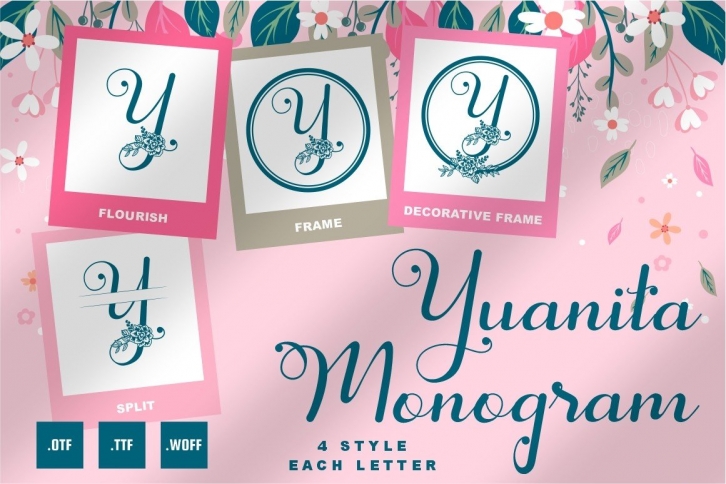
Yuanita Monogram is a dazzling decorative font. This font is neatly crafted and highly detailed. Whatever the topic, Yuanita Monogram will be a wonderful asset to your font library, as it has the potential to enhance any creation.